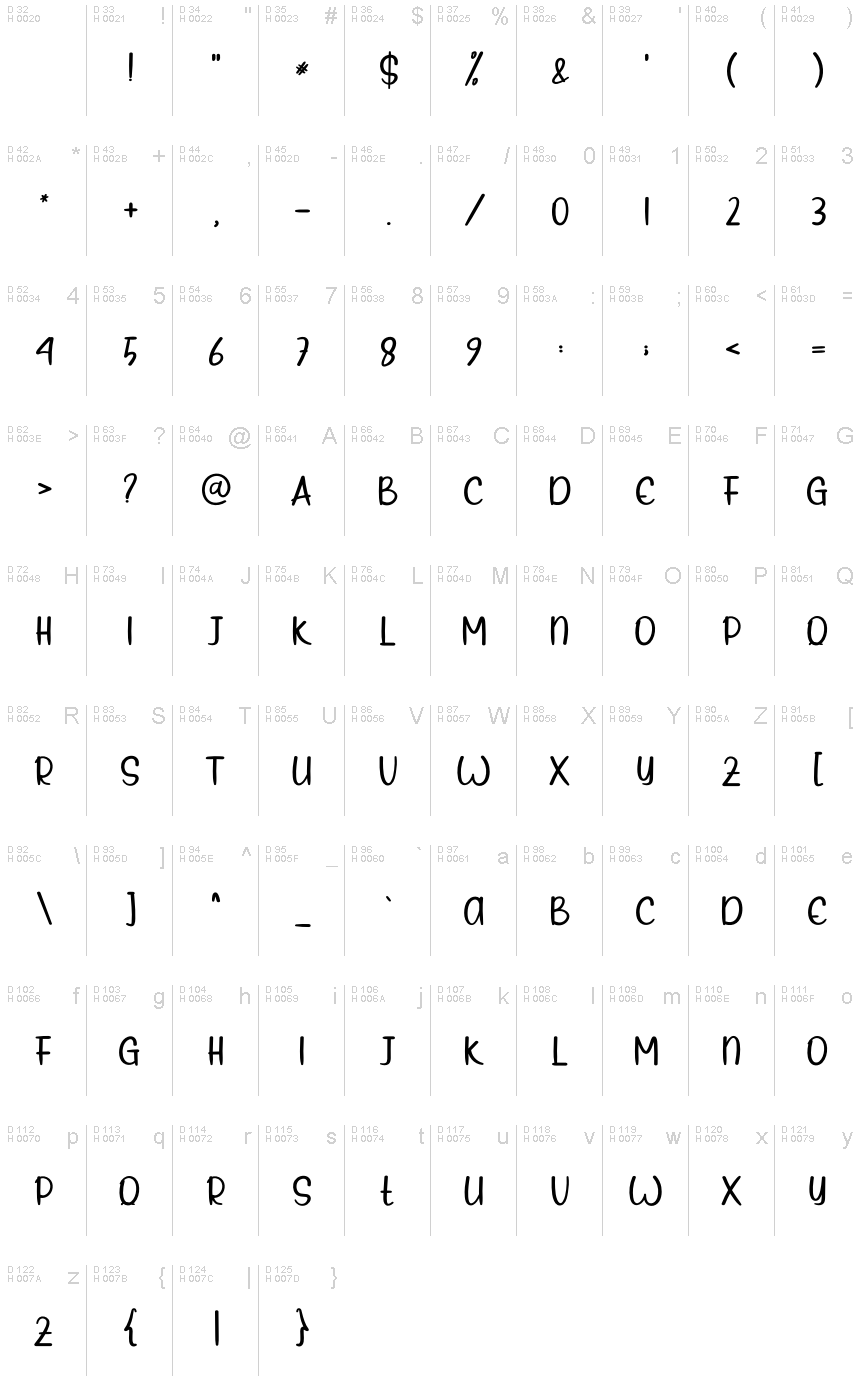
Simple Family
Simple Family, a creation by Etik Fatimah, invites warmth with its handwritten appeal, reminiscent of a personal note from a loved one. Every stroke bears the hallmarks of careful crafting, presenting an organic and approachable aesthetic that adds a touch of authenticity to digital communications. Its friendly curves and gentle flourishes evoke the comfort of home and casual elegance.
This inviting font is ideal for projects that require a personal touch such as greeting cards, invitations, or branding for boutique businesses. Simple Family's charm lies in its ability to make the digital feel intimate and handcrafted, making it perfect for those seeking to establish a connection through design.